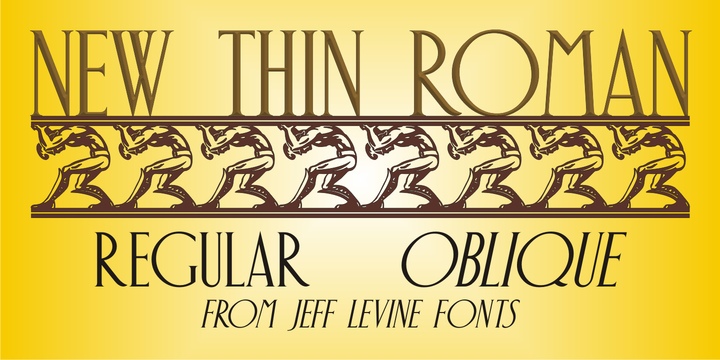
New Thin Roman JNL Font
New Thin Roman JNL Font is perfect for elegant fashion magazines, sophisticated luxury brands, refined architectural firms, delicate jewelry campaigns, minimalist design studios, and upscale contemporary communications. Its refined character makes it ideal for high-end beauty brands, sophisticated art galleries, elegant event planning, refined publishing houses, delicate stationery design, and any project requiring subtle elegance with sophisticated refinement and contemporary classical appeal.
This font is exciting because it masterfully combines the timeless authority of Roman letterforms with contemporary minimalist sensibilities while delivering exceptional functionality for brands seeking sophisticated elegance without overwhelming visual weight. The delicately crafted letterforms demonstrate refined restraint and classical proportions, creating typography that whispers sophistication rather than shouting for attention, perfect for audiences who appreciate understated luxury and elegant simplicity.
The New Thin Roman JNL Font family typically includes various weights with classical alternates, refined ligatures, and elegant elements that enhance its sophisticated personality. This comprehensive collection enables luxury professionals to create distinguished brand systems that maintain classical credibility while offering flexibility for various refined applications requiring both elegant authority and contemporary minimalist market positioning.
Whether you're developing identity systems for luxury fashion brands, creating materials for sophisticated cultural institutions, or designing promotional content for refined lifestyle organizations, New Thin Roman JNL Font Free Download delivers the elegant sophistication and classical refinement that resonates with discerning audiences seeking understated luxury and timeless elegance. Its refined presence ensures distinguished brand recognition across digital platforms and print materials, making it perfect for websites, mobile applications, and luxury campaigns that celebrate classical elegance, sophisticated minimalism, and the transformative power of refined typography with contemporary luxury standards and authentic classical sophistication.